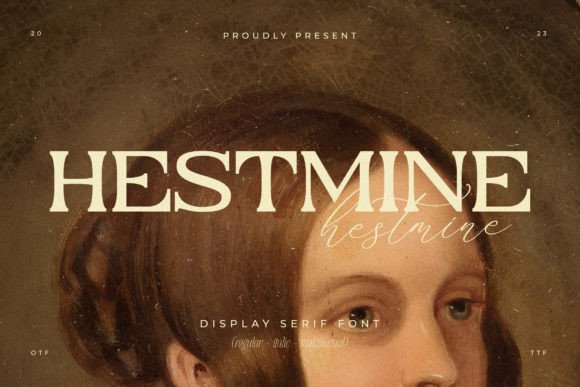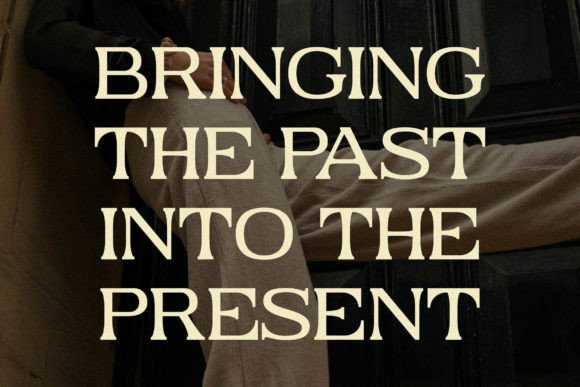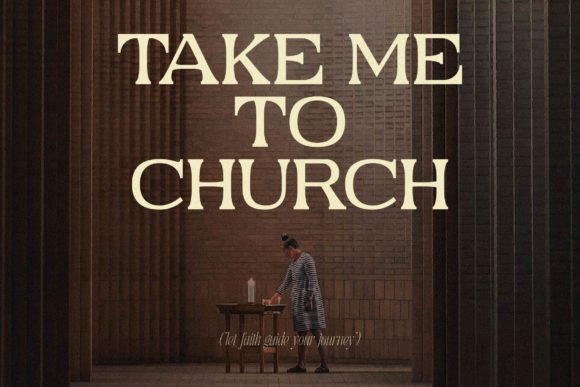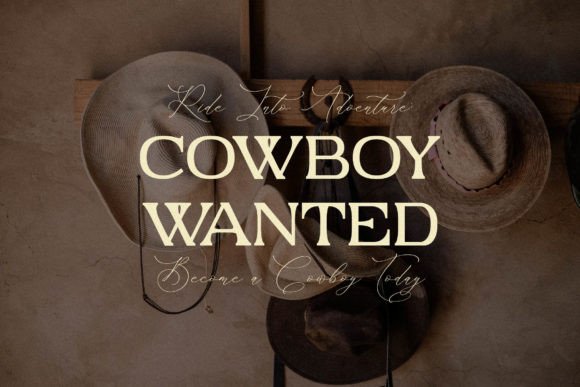
Hestmine Font: An Elegant Serif Typography for Luxury Branding
About the Hestmine Font
The Hestmine Font offers a perfect balance of form and function for your design needs. Hestmine is a unique and modern serif font perfect for elegant and luxury logos, book or movie title designs, fashion brands, magazines, clothes, lettering, quotes, and so much more.
Hestmine’s elegant serifs make it ideal for headlines, branding materials requiring a touch of sophistication, and short-form text applications like posters or packaging. Its refined aesthetic, however, makes it less suitable for body text or UI elements where readability over extended lengths is crucial.
The font exudes a confident, modern elegance. Projects benefiting most from its use include high-end fashion, luxury goods, and artistic ventures. Consider pairing Hestmine with a clean sans-serif like Montserrat for body copy or a playful script font like Allura for added contrast and visual interest, depending on the desired level of formality.
For a more minimalist approach, a geometric sans-serif such as Bebas Neue could provide a striking counterpoint, highlighting Hestmine’s refined curves. Avoid pairing it with other highly decorative fonts to prevent visual clutter.
Hestmine Font Usage Examples
Hestmine Font Example